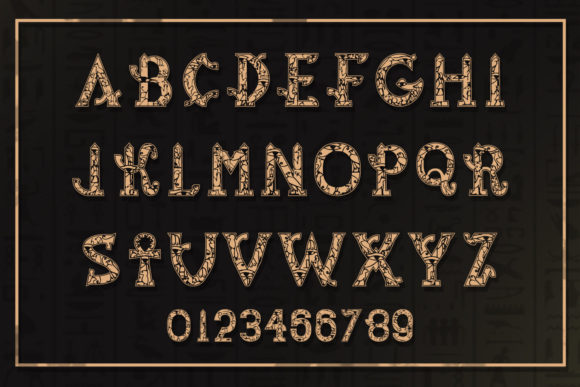
Besho Pharaoh Font: Unveiling the Aesthetic and Exotic Typeface Inspired by Egyptian Art
The world of typography has witnessed a significant transformation over the years, with designers continually pushing the boundaries to create unique and captivating fonts. Among these innovative typefaces is the Besho Pharaoh Font, an aesthetic and exotic font family that draws inspiration from the rich and fascinating world of Egyptian art. In this article, we’ll delve into the story behind Besho Pharaoh Font, its design elements, and what makes it a standout in the realm of typography.
The Genesis of Besho Pharaoh Font
Besho Pharaoh Font is a product of meticulous design and a deep appreciation for ancient Egyptian culture. The font’s creators aimed to encapsulate the essence of Egyptian art, characterized by its grandeur, mystique, and timeless beauty. By studying the intricate hieroglyphics, monumental architecture, and symbolic motifs of ancient Egypt, the designers sought to translate these elements into a modern font that would appeal to designers and typography enthusiasts alike.
Design Elements and Characteristics
Besho Pharaoh Font boasts a distinctive and exotic appearance, making it an excellent choice for projects that require a touch of ancient elegance. The font features:
- Intricate Letterforms: Each letter in the Besho Pharaoh Font is carefully crafted to reflect the ornate and detailed style of Egyptian hieroglyphics. The characters exhibit a high level of intricacy, with subtle nuances that evoke the spirit of ancient Egypt.
- Hieroglyphic Inspirations: The font incorporates elements reminiscent of hieroglyphics, such as symbolic motifs and geometric patterns. These inspirations add a layer of authenticity and uniqueness to the font, setting it apart from more conventional typefaces.
- Elegant Lines and Curves: Besho Pharaoh Font showcases a harmonious blend of elegant lines and curves, creating a visually appealing and balanced aesthetic. The fluidity of the font’s design makes it suitable for a wide range of applications, from headings and titles to body text.
What Makes Besho Pharaoh Font Stand Out
In a sea of fonts, Besho Pharaoh Font manages to stand out due to its distinctive characteristics and versatility. Here are a few reasons why designers and typography enthusiasts are drawn to this remarkable font:
- Uniqueness: Besho Pharaoh Font offers a fresh and distinctive voice in the world of typography. Its Egyptian-inspired design ensures that projects stand out and capture attention.
- Versatility: The font’s elegant and adaptable design makes it suitable for various applications, including branding, advertising, packaging, and digital media.
- Cultural Significance: By incorporating elements of Egyptian art and culture, Besho Pharaoh Font provides a unique opportunity to add depth and meaning to design projects.
Using Besho Pharaoh Font in Design Projects
Besho Pharaoh Font can elevate a wide range of design projects, from creative endeavors to commercial applications. Here are some ideas on how to effectively utilize this stunning font:
- Branding and Logo Design: Create a lasting impression with Besho Pharaoh Font, perfect for logos, business cards, and brand identity materials.
- Advertising and Marketing: Use the font to add a touch of sophistication and elegance to advertising campaigns, brochures, and marketing materials.
- Packaging Design: Add a unique and captivating element to product packaging, making it stand out on store shelves.
- Digital Media: Incorporate Besho Pharaoh Font into digital projects, such as website designs, social media graphics, and presentations.
Besho Pharaoh Font is a remarkable typeface that brings the essence of Egyptian art to the world of typography. Its unique design elements, versatility, and cultural significance make it an excellent choice for designers seeking to add an exotic and aesthetic touch to their projects. Whether you’re working on a branding campaign, advertising materials, or digital media, Besho Pharaoh Font is sure to leave a lasting impression.